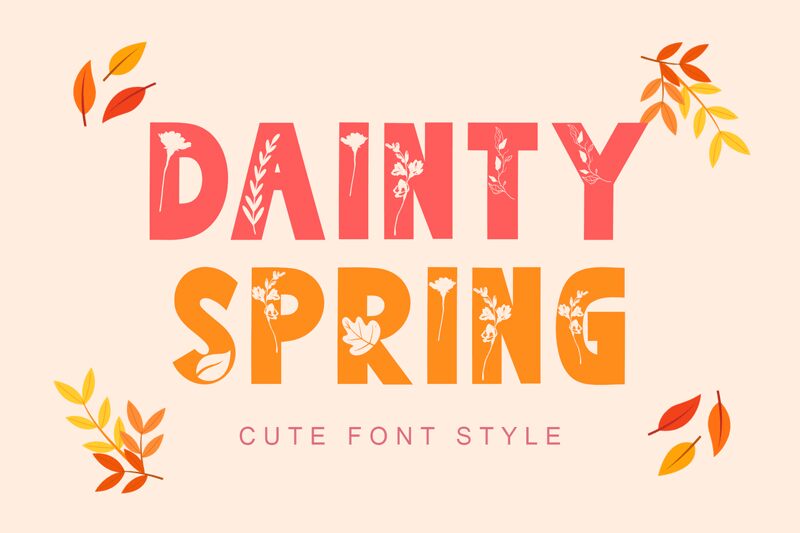
Dainty Spring font by Yoga Letter is a free decorative font bursting with vibrant colors, spontaneity, and a contemporary appeal, like blossoms of a spring garden. This all-caps typeface has a modern friendly design with artistic routes as seen in the floral additions artistically placed along the borders. It includes uppercase characters and basic punctuation marks. Its charming lively appearance makes it suitable for seasonal themes.
The font is great for any design project that requires a relaxed informal font style with warm cozy vibes. Invitation cards and greeting cards can be enhanced within minutes of using Dainty Spring. Posters, advertisements, promotional materials, signs, merchandise, and book covers are other options. Last but not least, this font would look lovely in homeware designs; whether it’s clothing, stationery, and dishes or just as a quote hanging on the wall.